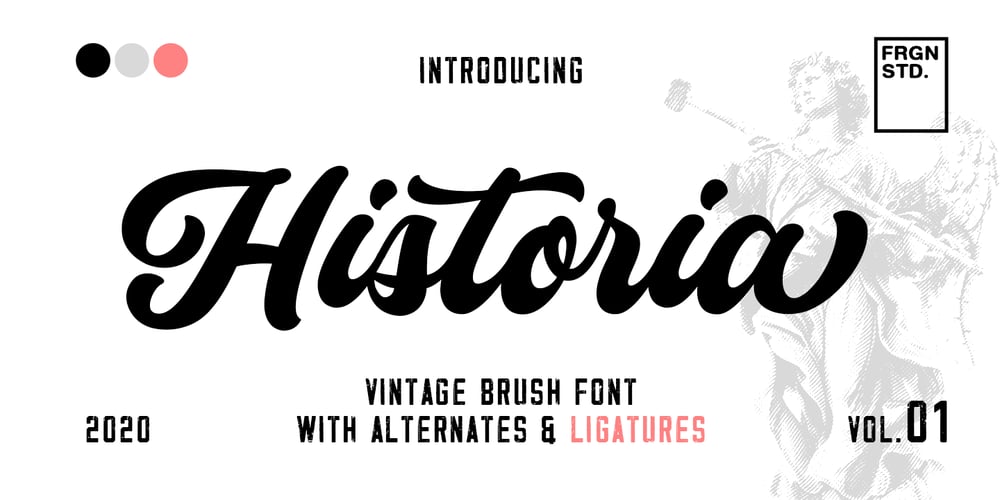
Historia Script Font Family was designed by Fajar Gunawan and published by Fargun Studio. Historia Script contains 1 styles and family package options. Historia script is the stylish vintage look font. Come with ligatures, stylistic alternate, stylistic set and end swash to make your own design look perfect. Can be used for various purposes. such as headings, signature, logos, retro wedding invitation, t-shirt, letterhead, signage, label, news, posters, badges etc.Features : Unique ligatures Stylistic Alternates Stylistic sets Basic Latin A-Z and a-z Numbers International Symbols included Punctuations To enable the OpenType Stylistic alternates, you need a program that supports OpenType features such as Adobe Illustrator CS, Adobe Indesign, Adobe Photoshop & CorelDraw X6-X7.There are additional ways to access alternates/swashes, using Character Map (Windows), Nexus Font (Windows), Font Book (Mac) or a software program such as PopChar (for Windows and Mac).Need help? If you need help or advice, please contact me by e-mail fargunstudio@gmail.comThank you for your purchase!